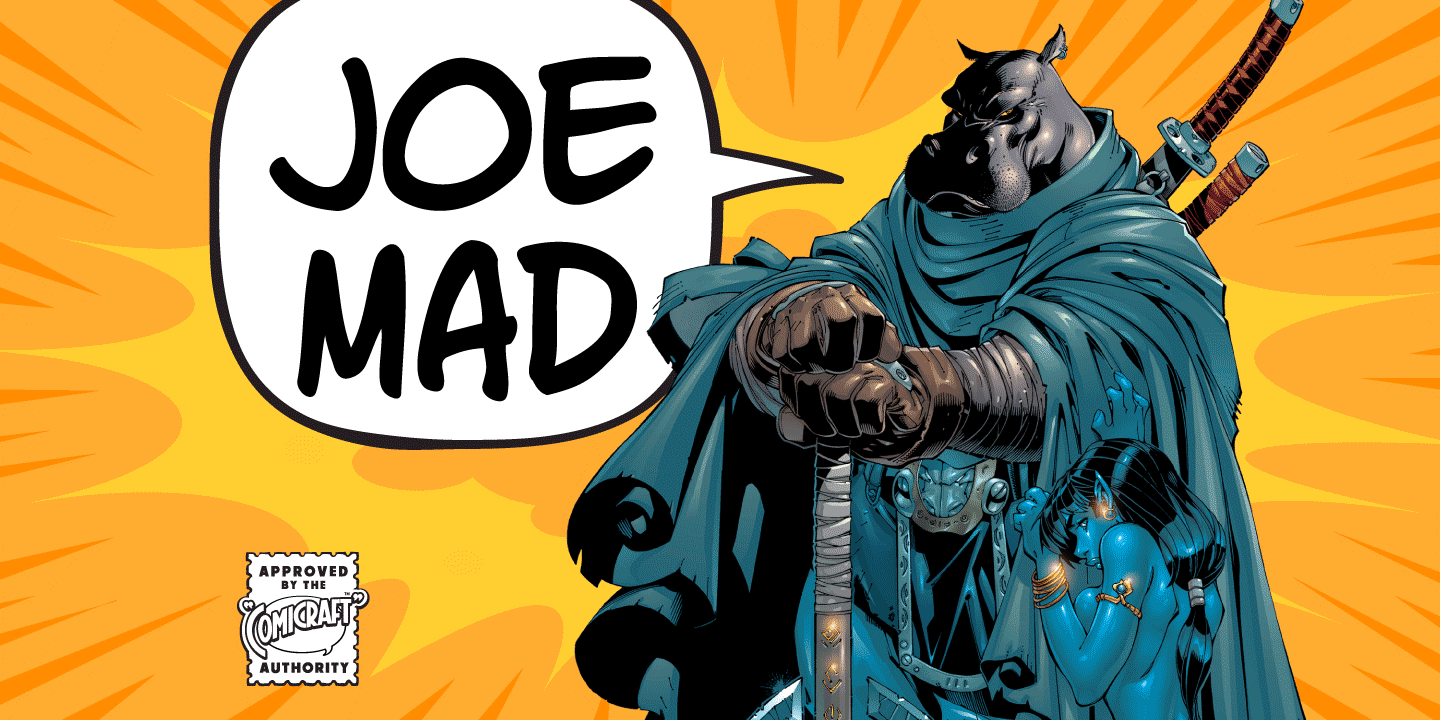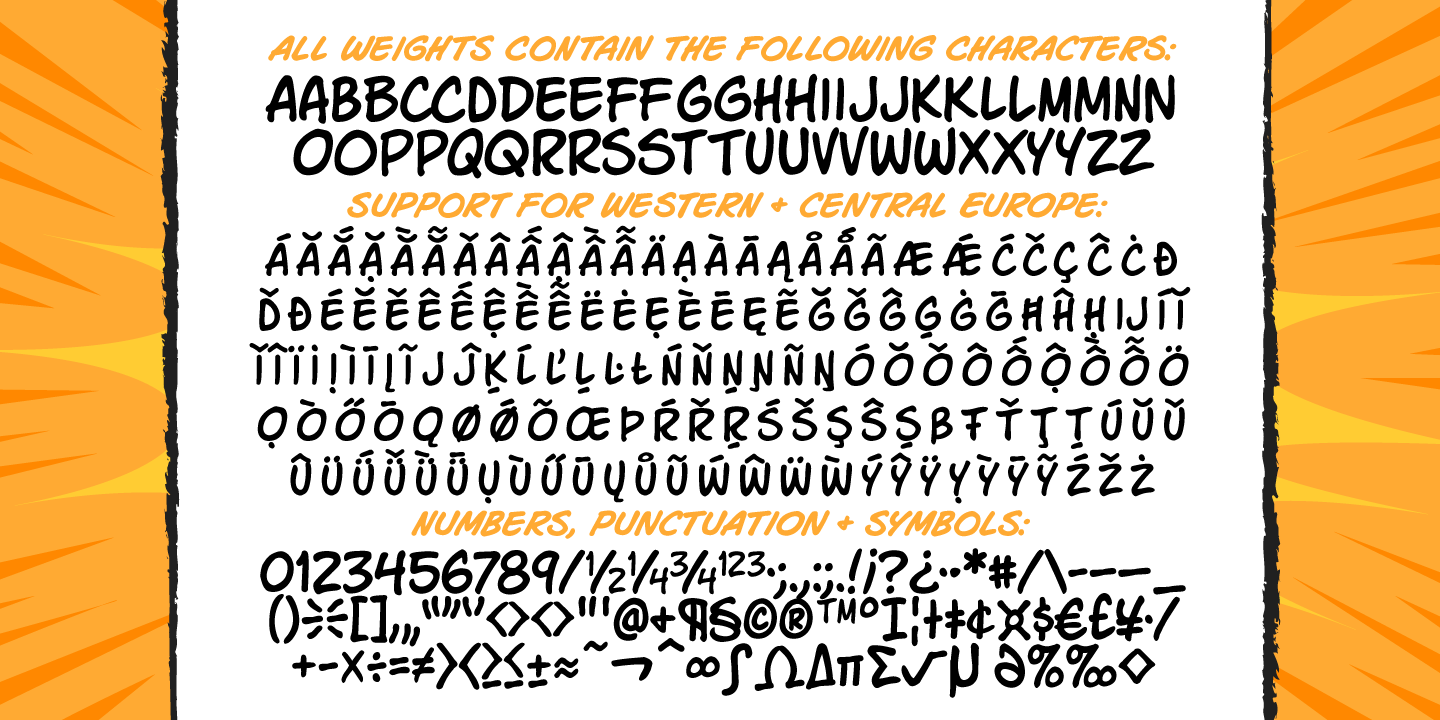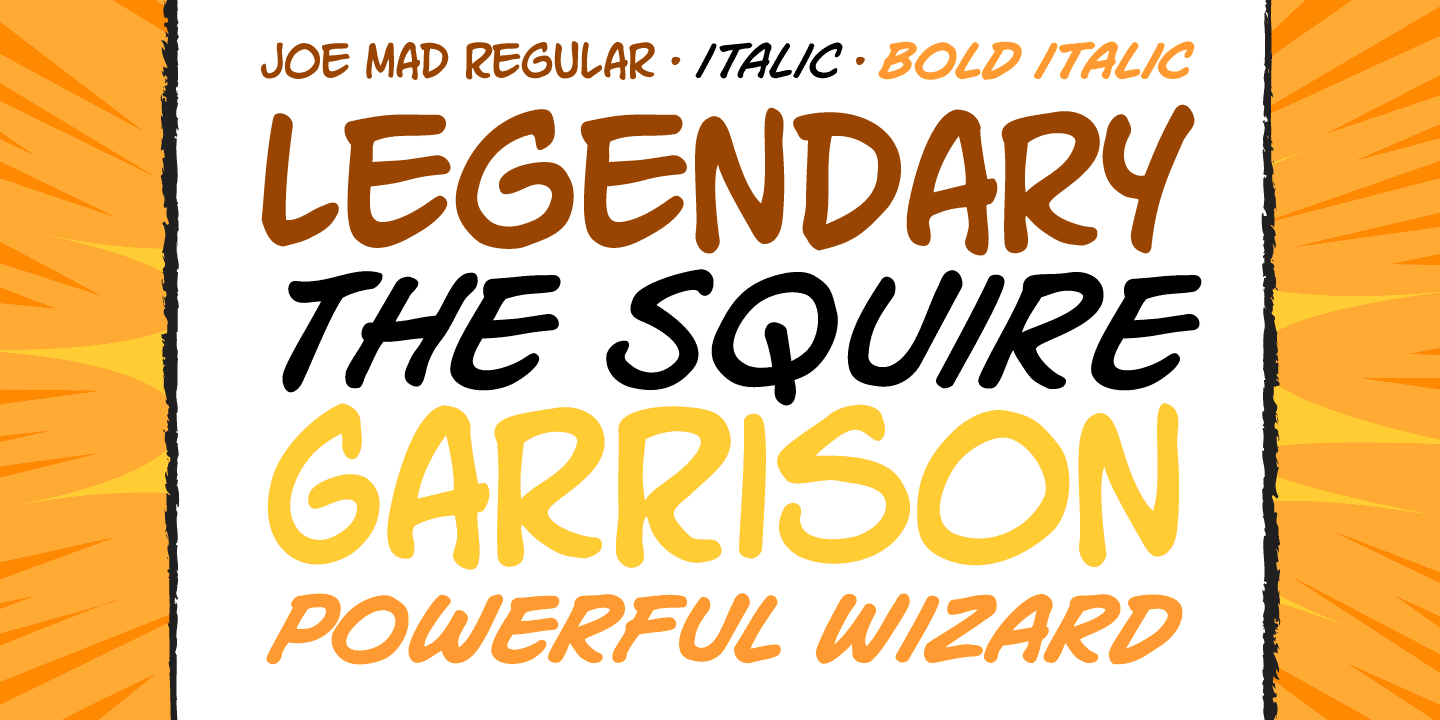
Joe Mad
Font Family by Comicraft Fonts
Joe Mad is a lively, hand-drawn display family with a comic-inspired sans serif feel. Its bold strokes, rounded edges, and slightly informal rhythm give it an energetic, friendly voice that feels playful without losing impact.
With four styles included—Regular, Italic, Bold, and Bold Italic—it gives you a flexible set for expressive headlines and attention-grabbing type. The overall look is casual, dynamic, and cartoonish, making it a strong fit for comic-style lettering, posters, kids’ projects, playful branding, packaging, and other display work that benefits from a spirited, animated tone.